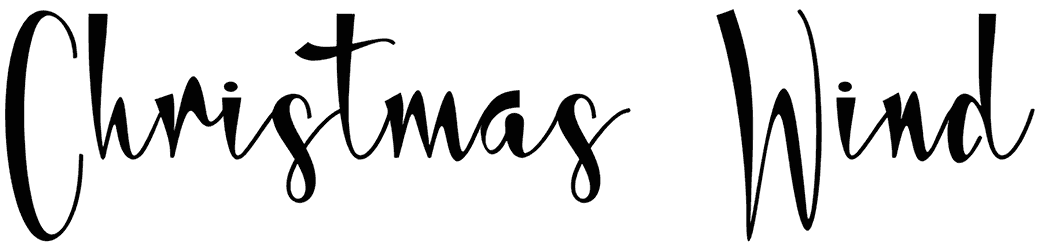
Christmas Wind Font
If you need to simulate a handwritten signature in your content or want to write subheadings for your blog, Christmas Wind is a great choice. Irregular shapes are given to the twists of this script font as if the wind formed them.
Although the elegance and narrow lines in this handwritten font‘s design seem relatively ordinary, they’re more inclined towards flourishing and provide many possibilities. So it’s time to add Christmas Wind to your collection and use it for various occasions.